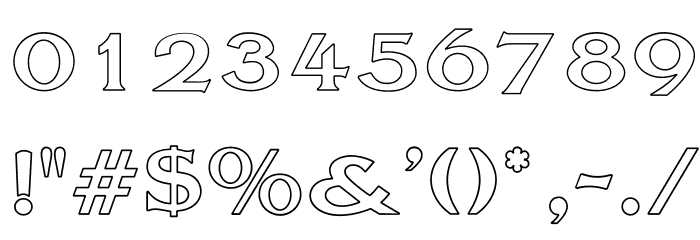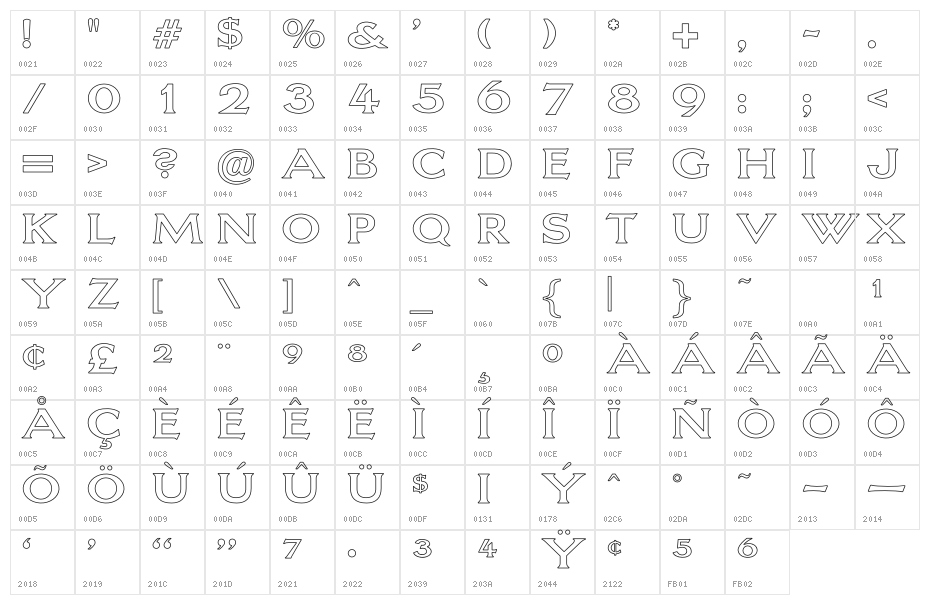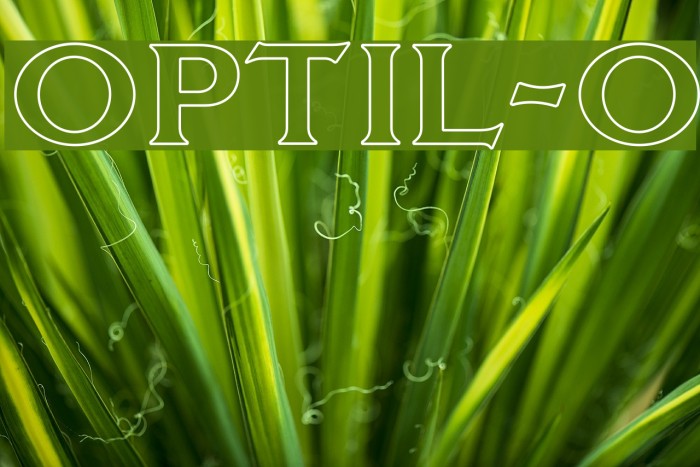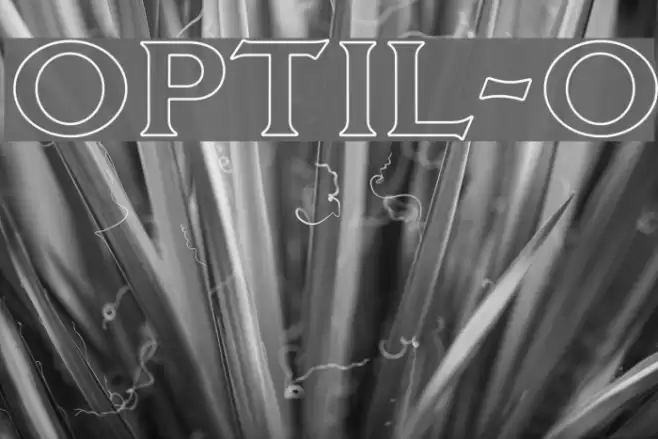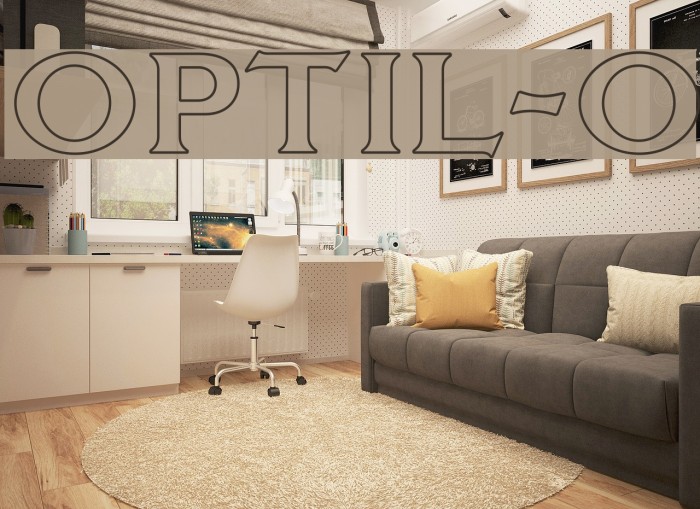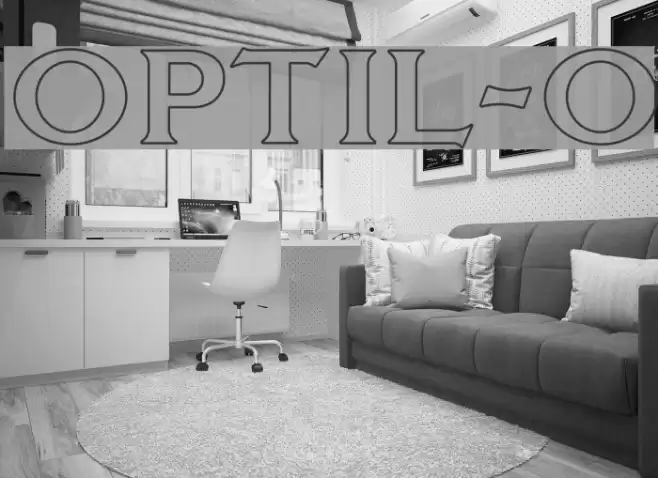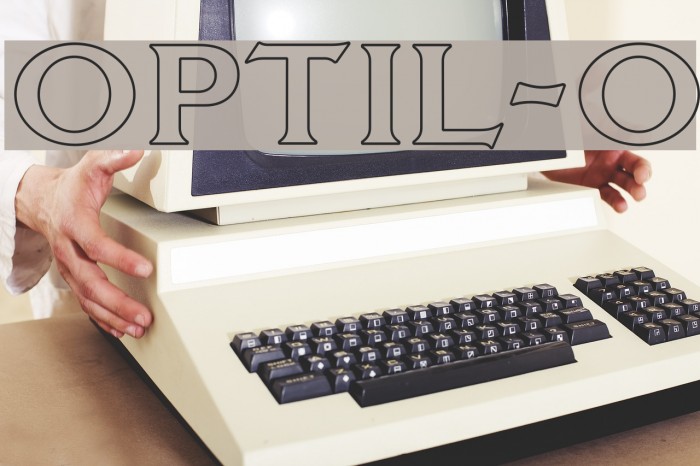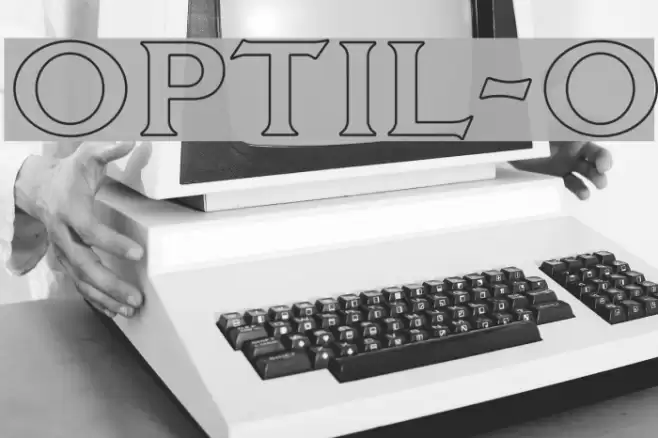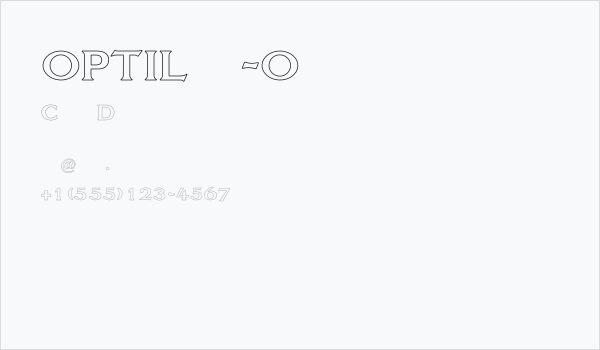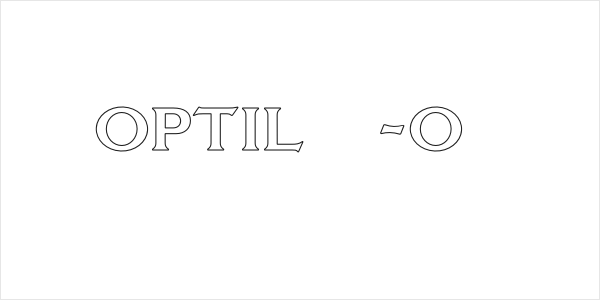
OPTILagoon-Open Font
OPTILagoon-Open Description
This font features a distinctive outline style, giving it a modern and airy appearance. The uppercase letters are bold and geometric, with clean lines and a consistent stroke width that creates a sense of balance and harmony. The numerals and special characters maintain this geometric precision, ensuring uniformity across all glyphs. The font's open design makes it ideal for projects that require a contemporary and stylish look, while its clarity ensures readability even at smaller sizes. The spacing between characters is normal, providing a comfortable reading experience without feeling cramped or overly spaced.
Proposed ProjectsIdeal for branding, headlines, posters, and modern design projects where a stylish and contemporary look is desired.